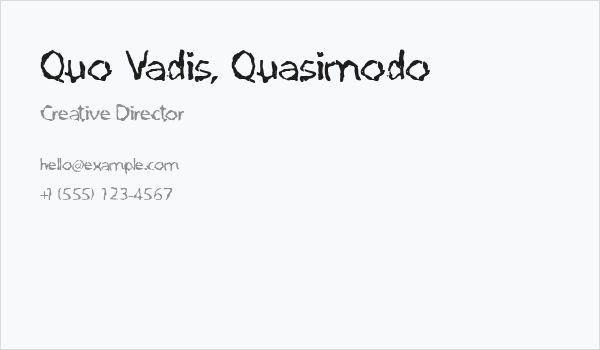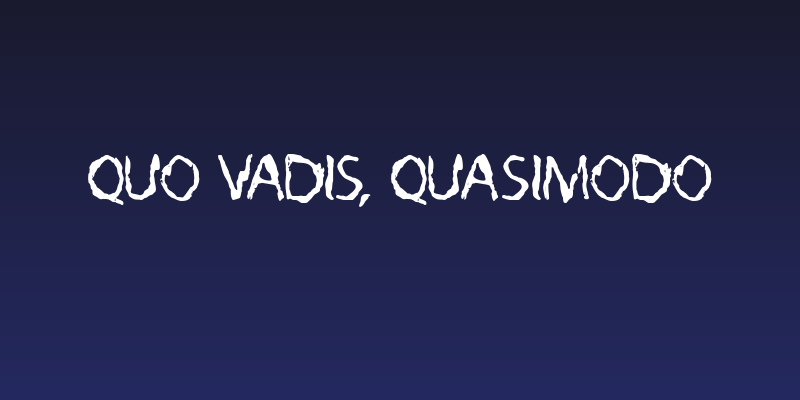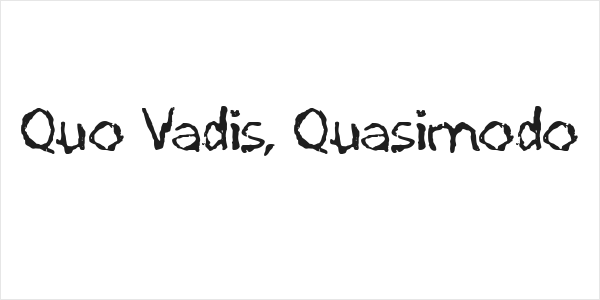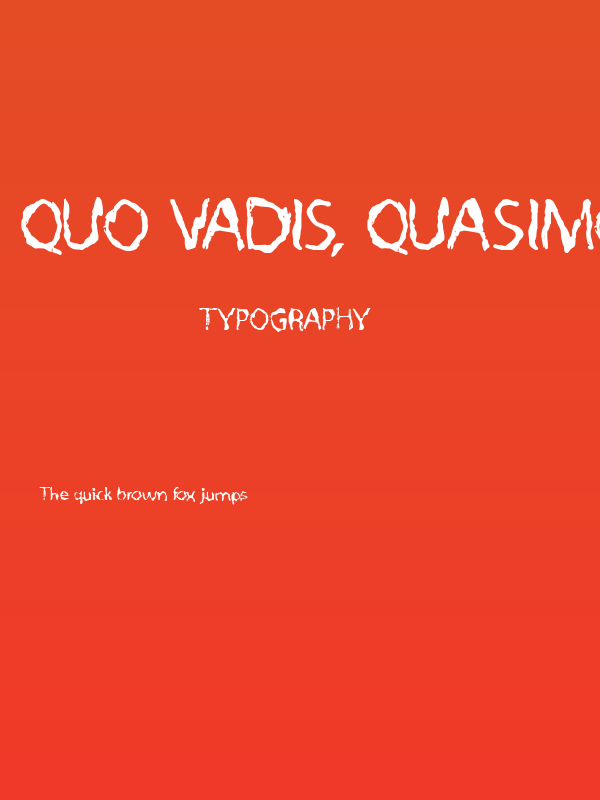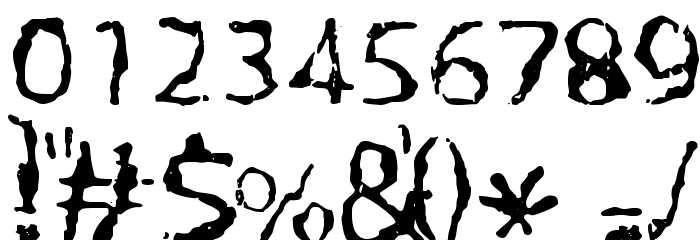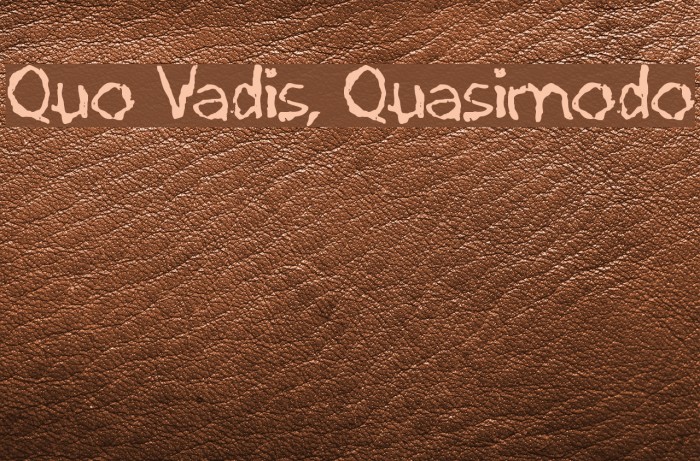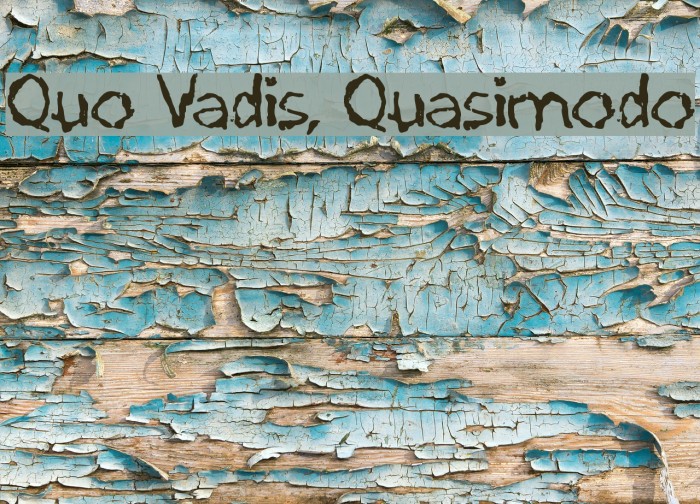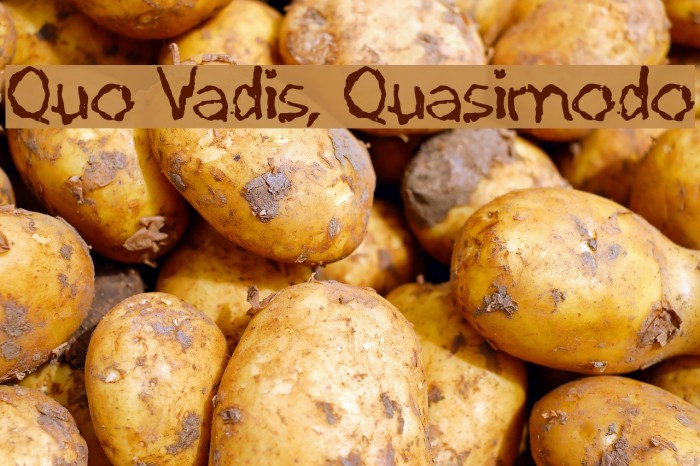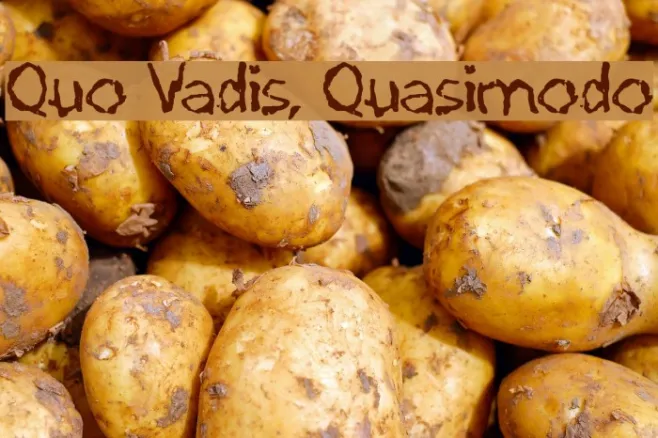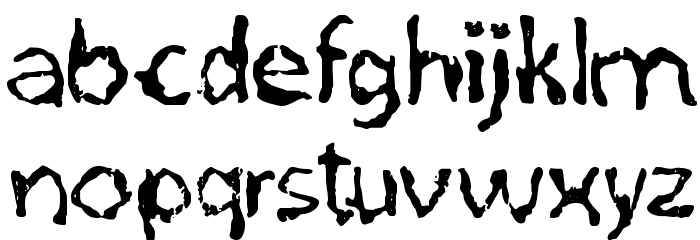
Quo Vadis, Quasimodo Font
Quo Vadis, Quasimodo Description
This font features a rugged, distressed appearance, reminiscent of hand-drawn or weathered text. The characters exhibit irregular edges and varying stroke thickness, creating a dynamic and organic feel. The uppercase and lowercase letters maintain a consistent style, with a playful yet slightly chaotic look. Numbers and special characters follow the same aesthetic, ensuring uniformity across all glyphs. This font is ideal for projects that require a touch of grunge or an artistic, unconventional vibe.
| Use Case | Logos, Posters, Artistic projects |
| Proposed Projects | Ideal for album covers, posters, artistic projects, and branding that requires a grunge or unconventional style. |